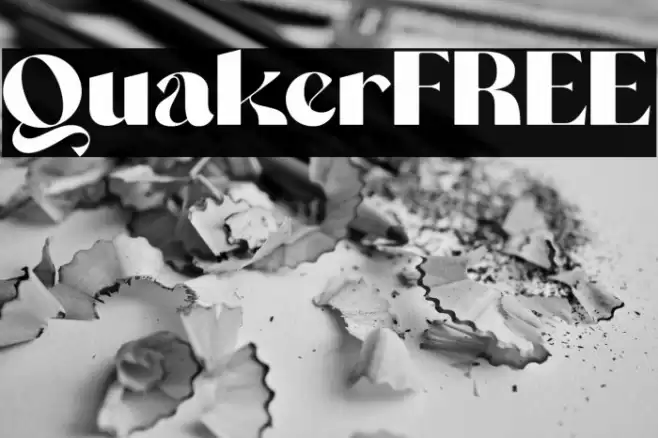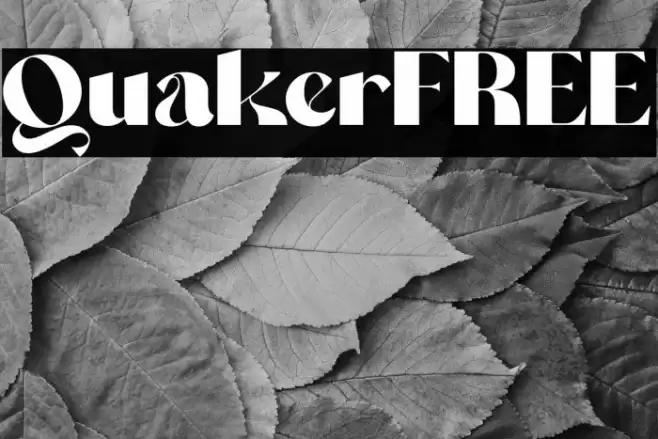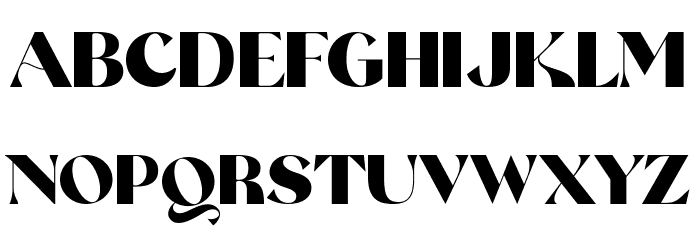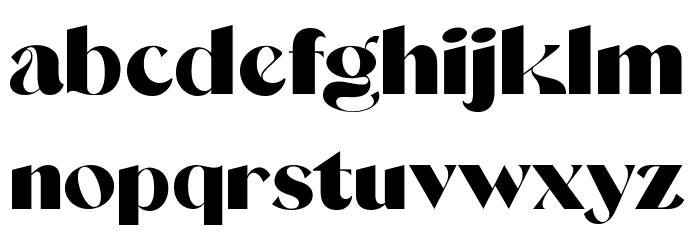
QuakerFREE Font
QuakerFREE Description
This font features a bold and striking design with a high contrast between thick and thin strokes, creating a dramatic and elegant appearance. The uppercase letters are particularly distinctive, with sharp angles and unique cuts that add a modern flair. The lowercase letters maintain a consistent style, with some characters featuring subtle flourishes that enhance the overall aesthetic. The font's geometric shapes and clean lines make it suitable for a variety of design projects, offering a balance between traditional serif elements and contemporary design. Its bold presence makes it ideal for attention-grabbing headlines and impactful branding.
A bold, high-contrast font with modern geometric elements and unique cuts from Regular fonts.
- Proposed Projects: Ideal for branding, headlines, posters, and editorial design.